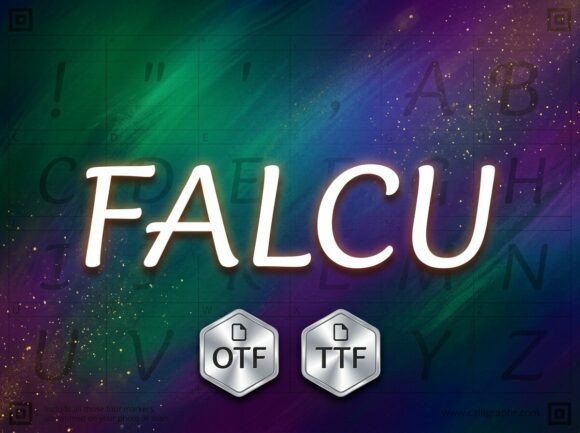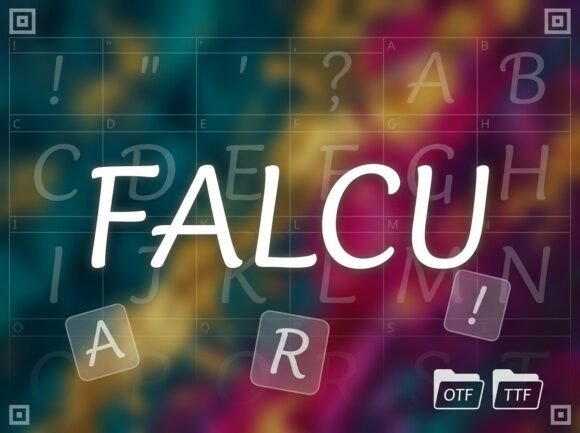
Introducing Falcu Font: The Ultimate Decorative Display Font
Are you tired of using the same old fonts for your designs? Look no further than Falcu Font, a stunning decorative display font that’s sure to turn heads. With its unique artistic elements and strong visual personality, this font is perfect for creators who want to break away from the ordinary and make a statement.
What Makes Falcu Font Special?
Falcu Font is a versatile font that’s designed to be the center of attention. Its unique artistic elements and strong visual personality make it perfect for a variety of design projects, from bold headlines and artistic logos to creative packaging. Whether you’re a designer, craftsperson, or DIY enthusiast, this font is sure to elevate your work to the next level.
Key Features of Falcu Font
- Unique Artistic Elements: Falcu Font features unique artistic elements that set it apart from other fonts. Each letter is carefully crafted to make a statement and add a touch of elegance to your designs.
- Strong Visual Personality: This font has a strong visual personality that’s sure to grab attention. Its bold and eye-catching design makes it perfect for headlines, logos, and other design elements that need to stand out.
- Versatile: Falcu Font is versatile enough for use in a variety of design projects, from bold headlines and artistic logos to creative packaging.
- Professional and Polished Finish: Despite its bold and artistic design, Falcu Font maintains a professional and polished finish that’s suitable for even the most high-end design projects.
IMPORTANT NOTE BEFORE PURCHASE: Falcu Font is an ALL-CAPS (Uppercase Only) display typeface. It does not include lowercase letters. It is specifically designed for high-impact headlines, logos, and decorative initials where every letter is a work of art.
Why Choose Falcu Font?
There are many reasons why Falcu Font is the perfect choice for designers and crafters. Here are just a few:
- Add a Touch of Elegance: Falcu Font adds a touch of elegance and sophistication to any design project.
- Stand Out from the Crowd: With its unique artistic elements and strong visual personality, Falcu Font is sure to help your designs stand out from the crowd.
- Perfect for Display Text: This font is specifically designed for display text, making it perfect for headlines, logos, and other design elements that need to grab attention.
- Use it for Headlines: Falcu Font is perfect for headlines and other display text.
- Experiment with Different Sizes: This font looks great in a variety of sizes, from small to large.
- Pair it with Other Fonts: Falcu Font pairs well with a variety of other fonts, so feel free to experiment with different combinations.
In conclusion, Falcu Font is a stunning decorative display font that’s perfect for designers and crafters who want to add a touch of elegance and sophistication to their work. With its unique artistic elements, strong visual personality, and versatility, this font is sure to elevate your designs to the next level. So why wait? Purchase Falcu Font today and start creating stunning designs that turn heads.